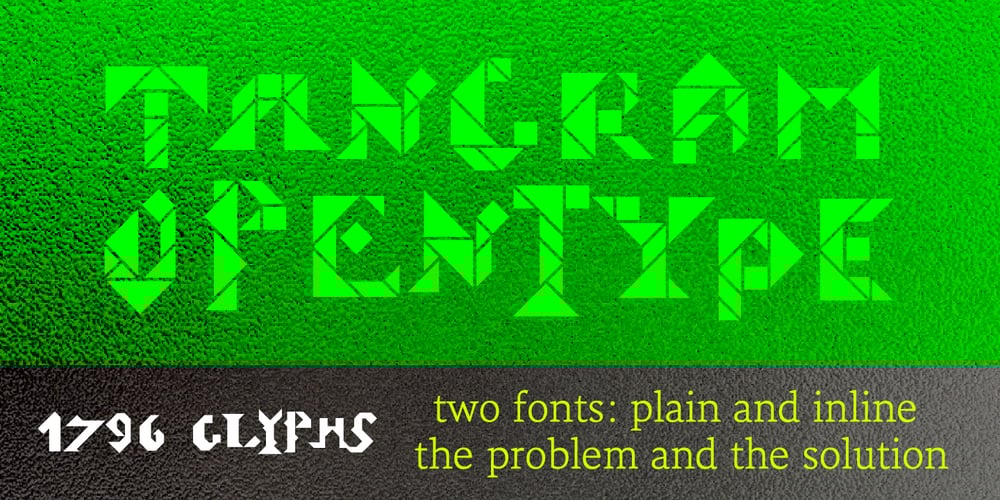
Tangram Font Family was designed by Thierry Puyfoulhoux and published by Présence Typo. Tangram contains 29 styles and family package options. Tangram is the famous Chinese puzzle, perhaps one of the oldest games in the world. It consists of seven pieces called Tans obtained from a square cut up in a certain way. These seven Tans (5 different-sized triangles, a square and a parallelogram) have to be used to form the figures. The Tangram collection represents 1772 different shapes spread in 15 fonts. Each font exists in 2 styles: plain & inline.